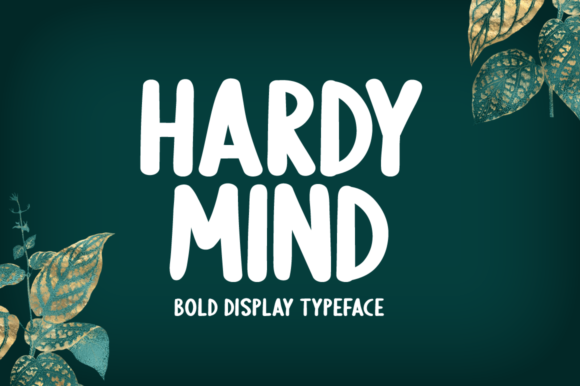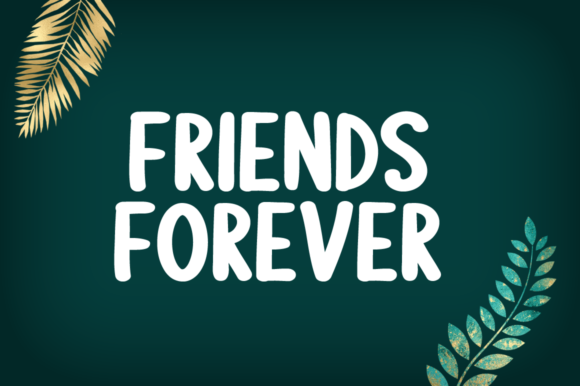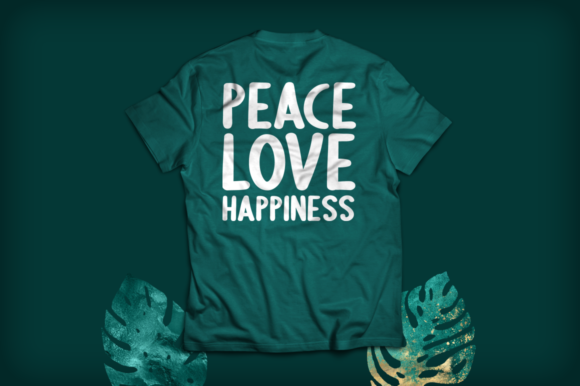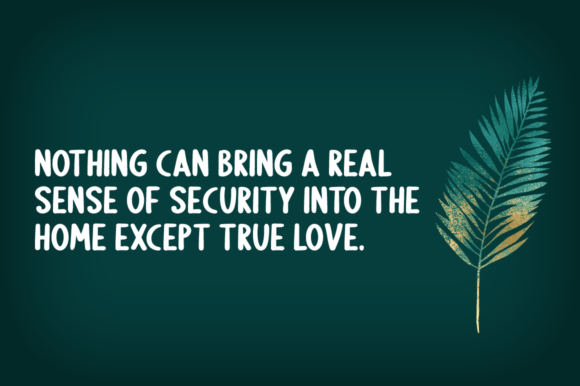
Hardy Mind Font: A Bold & Organic Display Font for Logo Design
About the Hardy Mind Font
From logos to headlines, the Hardy Mind Font is the perfect choice for making a lasting impression. Hardy Mind is a simple, organic and bold display font. Simple but with a strong visual effect, this font will instantly make your creation more appealing than any others.
Hardy Mind excels as a display font for headlines, posters, and branding applications where a bold statement is needed. Its strong visual impact makes it ideal for short, impactful text, particularly in projects requiring a modern and confident aesthetic. Avoid using it for body copy or lengthy paragraphs; its weight and organic forms can become visually overwhelming in extended text.
The font’s inherent boldness pairs well with clean, minimalist sans-serif fonts like Lato or Open Sans for a balanced contrast. For a more sophisticated feel, consider pairing it with a classic serif like Garamond or a slightly more playful script such as Allura. These pairings allow Hardy Mind to retain its visual strength while providing readability and visual interest.
Hardy Mind projects a bold and confident personality, suitable for brands aiming for a modern, impactful image. Think technology startups, edgy fashion brands, or products emphasizing strength and innovation. Its organic forms soften the boldness slightly, preventing it from feeling overly aggressive.
Hardy Mind Font Usage Examples
Hardy Mind Font Example